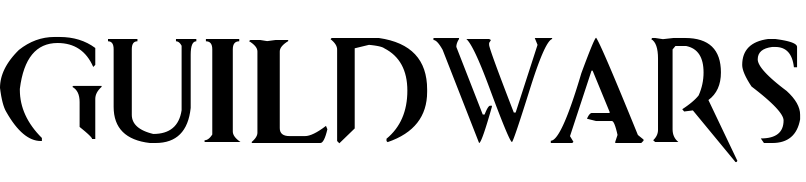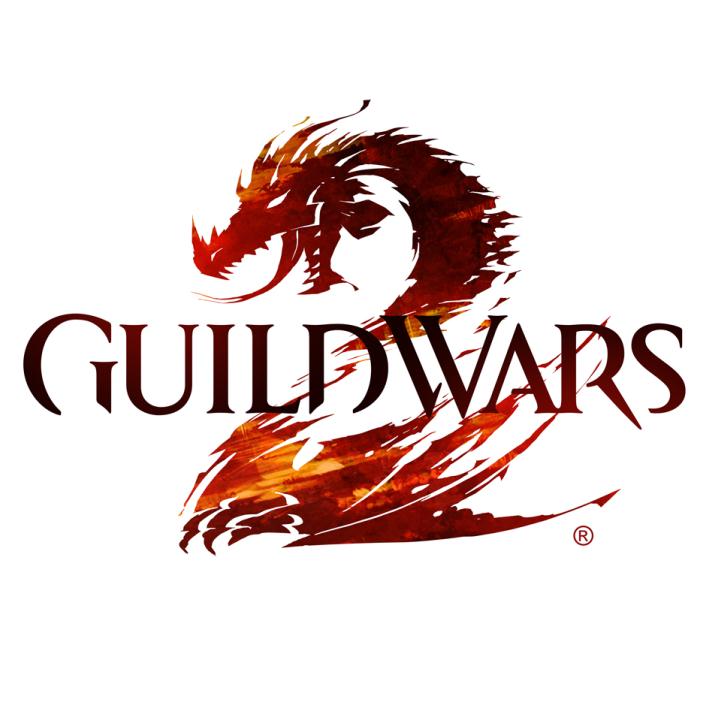
Guild Wars 2 Font
The font utilized for the game's logo on the poster resembles a fan-created font named GW Two, which is exclusively available in capital letters. The font can be downloaded at no cost from the Fonts Used Section.